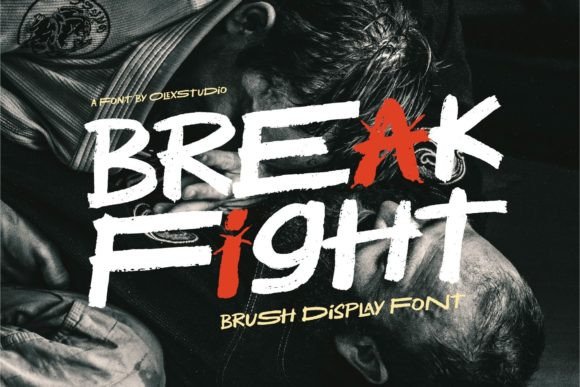
Unleash the Power of Expression with Break Fight Font: The Ultimate Display Poster Font for Bold and Dynamic Designs
Immerse yourself in the captivating world of Break Fight Font, a remarkable display typeface that ignites creativity and leaves a lasting impression. This modern brush display font embodies the essence of boldness, energy, and sophistication, making it the perfect choice for creating captivating posters, eye-catching headlines, and impactful branding materials.
Break Fight Font's carefully crafted characters exude a sense of vitality and movement, bringing your words to life. Its dynamic strokes and playful imperfections create a visual symphony that commands attention and evokes emotions. Whether you're designing posters for an upcoming event, creating social media graphics, or crafting stunning logos, Break Fight Font will elevate your designs to new heights.
Unleash the Creative Beast Within:
- Ignite Your Imagination: Break Fight Font's unique personality adds a spark of creativity to your designs, inspiring you to push the boundaries and create truly remarkable visuals.
- Make a Statement: Break Fight Font's bold and confident presence makes it the ideal choice for creating posters that demand attention and leave a lasting impression.
- Stand Out from the Crowd: Break Fight Font's distinctive style sets your designs apart from the ordinary, ensuring that your message is seen, heard, and remembered.
- Create a Cohesive Brand Identity: Use Break Fight Font consistently across your branding materials to create a unified and recognizable visual identity that resonates with your audience.
Elevate Your Designs with Ease:
- Effortless Versatility: Whether you're working on posters, flyers, social media graphics, or website designs, Break Fight Font seamlessly adapts to any project, making it a versatile addition to your design toolbox.
Break Fight Font: The Perfect Choice for:
- Poster Designers: Create posters that captivate and engage your audience, leaving a lasting impression that drives action.
- Graphic Designers: Elevate your designs with a font that adds a touch of uniqueness and personality to your creations.
- Social Media Marketers: Grab attention on social media with captivating graphics that stand out in the crowded digital landscape.
- Brand Builders: Establish a strong and memorable brand identity with a font that reflects your values and resonates with your target audience.